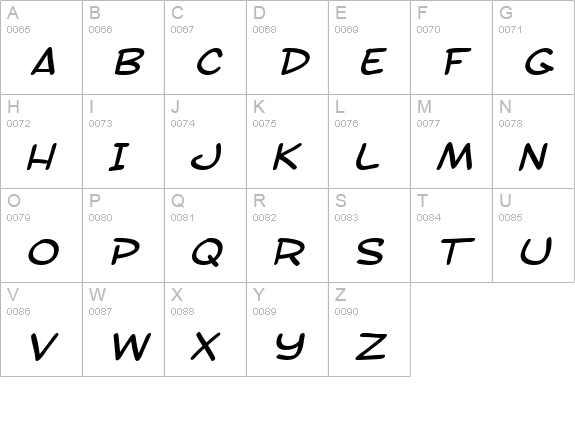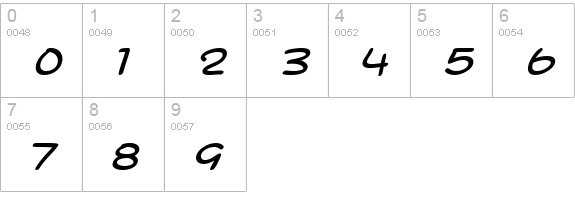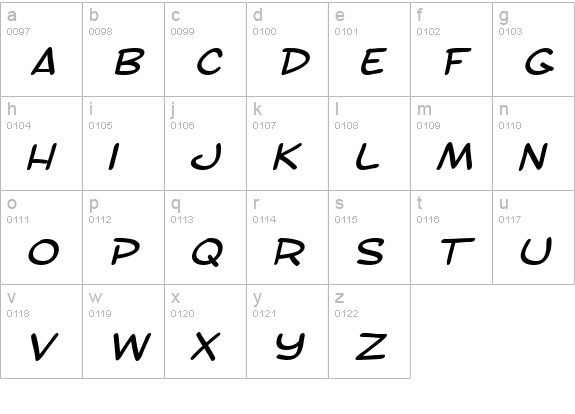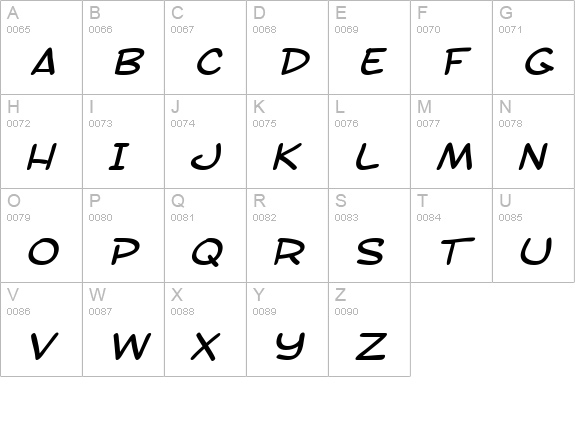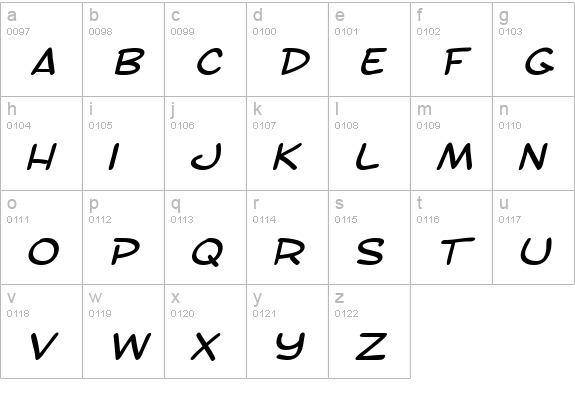
SF Toontime Extended Italic Font Details
SF Toontime Extended Italic is a distinctive, extended-width, italic variant in the SF typeface family \xE2\x80\x94 well suited to design and typography projects.
SF Toontime Extended Italic font is a whimsical and playful typeface that adds a touch of charm to any design project. Its distinct and exaggerated letterforms create a sense of fun and excitement, making it perfect for children's books, comics, cartoons, and any other creative endeavor that requires a touch of lightheartedness. This font features an extended italic style that adds a dynamic and energetic feel to your text. The slanted and elongated letterforms give a sense of motion and playfulness, making it ideal for conveying a sense of adventure and imagination. One of the most appealing aspects of SF Toontime Extended Italic font is that it is available for free. You can easily download it at FontsMarket.com, a trusted source for high-quality fonts. With this free font, you have the opportunity to enhance your designs without breaking the bank. Whether you're a professional designer or a hobbyist, this font allows you to add a touch of whimsy and creativity to your projects, without any cost. The versatility of SF Toontime Extended Italic font is another reason to love it. Its unique style makes it suitable for a wide range of design applications. From children's book covers to party invitations, from website headings to logo designs, this font can bring a sense of playfulness and cheer to any project. In conclusion, SF Toontime Extended Italic font is a delightful and free typeface that can elevate your designs with its whimsical and dynamic style. Available for download at FontsMarket.com, it offers a world of creative possibilities at no cost. Inject a dose of fun and imagination into your next design project with this charming font.